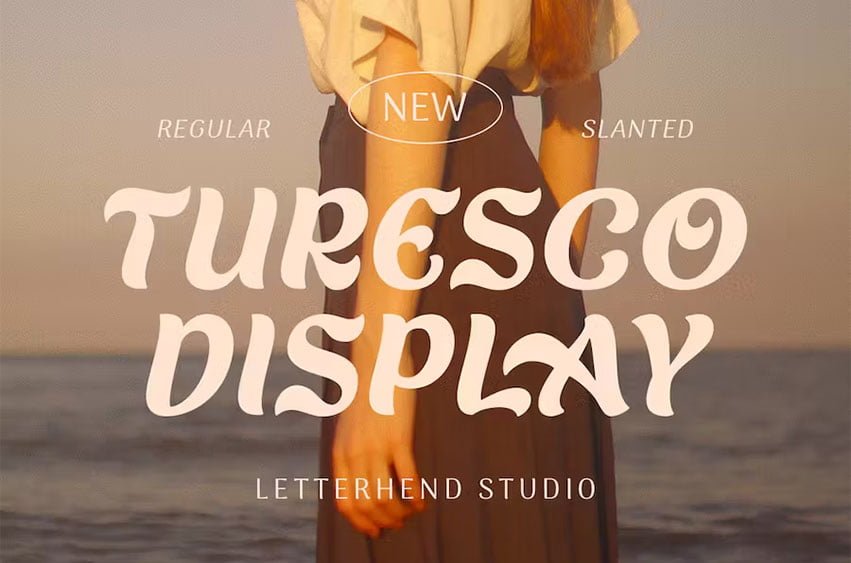
Turesco Display Font is a display typeface with unique letterforms. It looks great to be used for a modern and minimalistic yet still playful and fun theme. This font is perfectly made to be applied especially in logo, and other various formal forms such as invitations, labels, logos, magazines, books, greeting / wedding cards, packaging, fashion, make up, stationery, novels, labels or any type of advertising purpose.
Turesco Display Font Preview